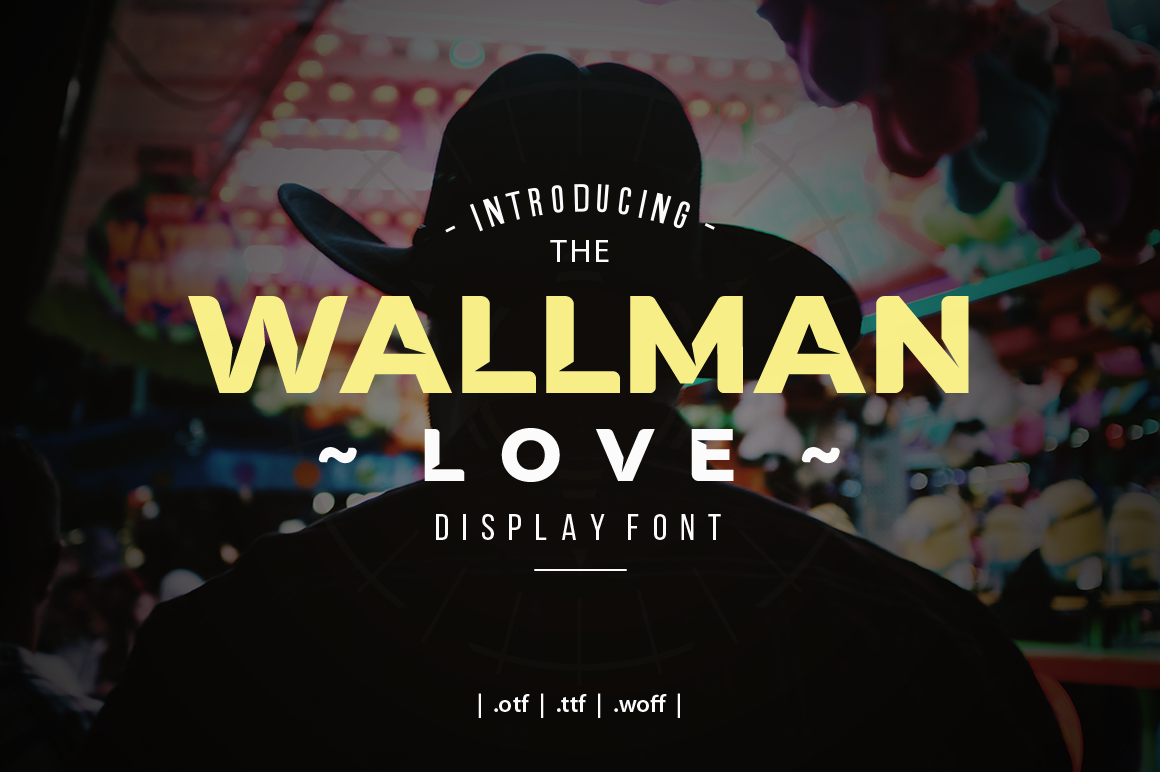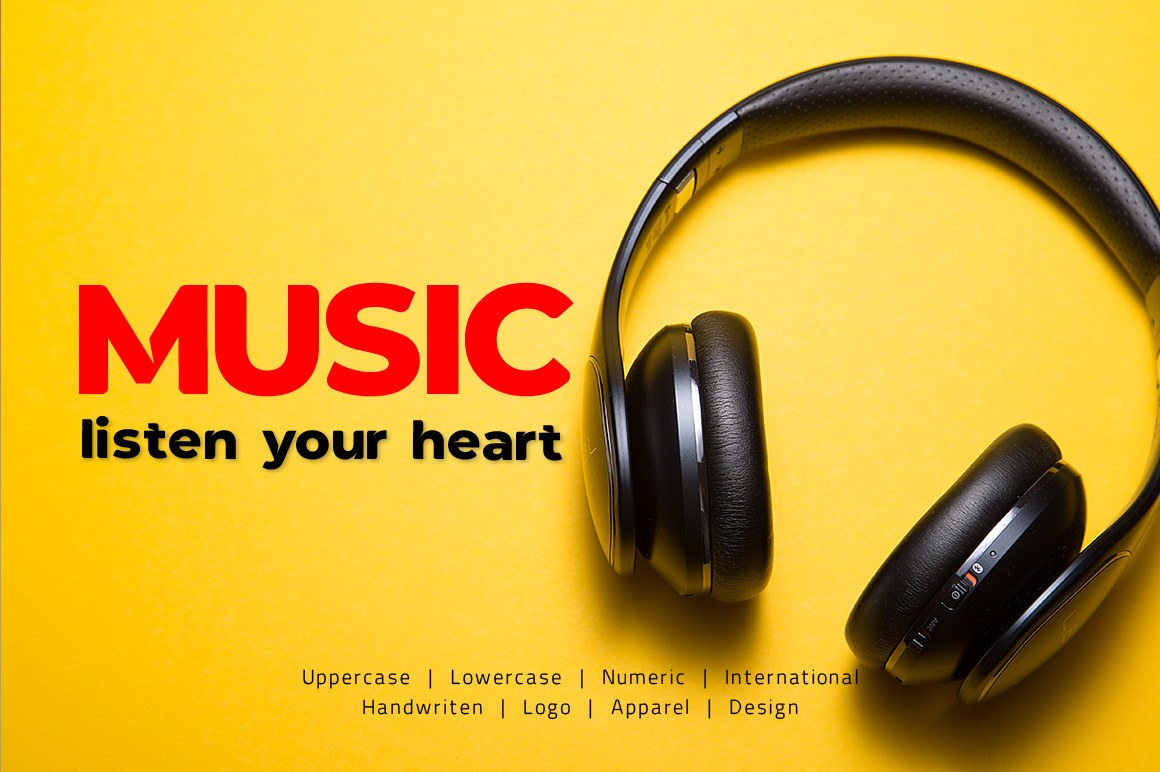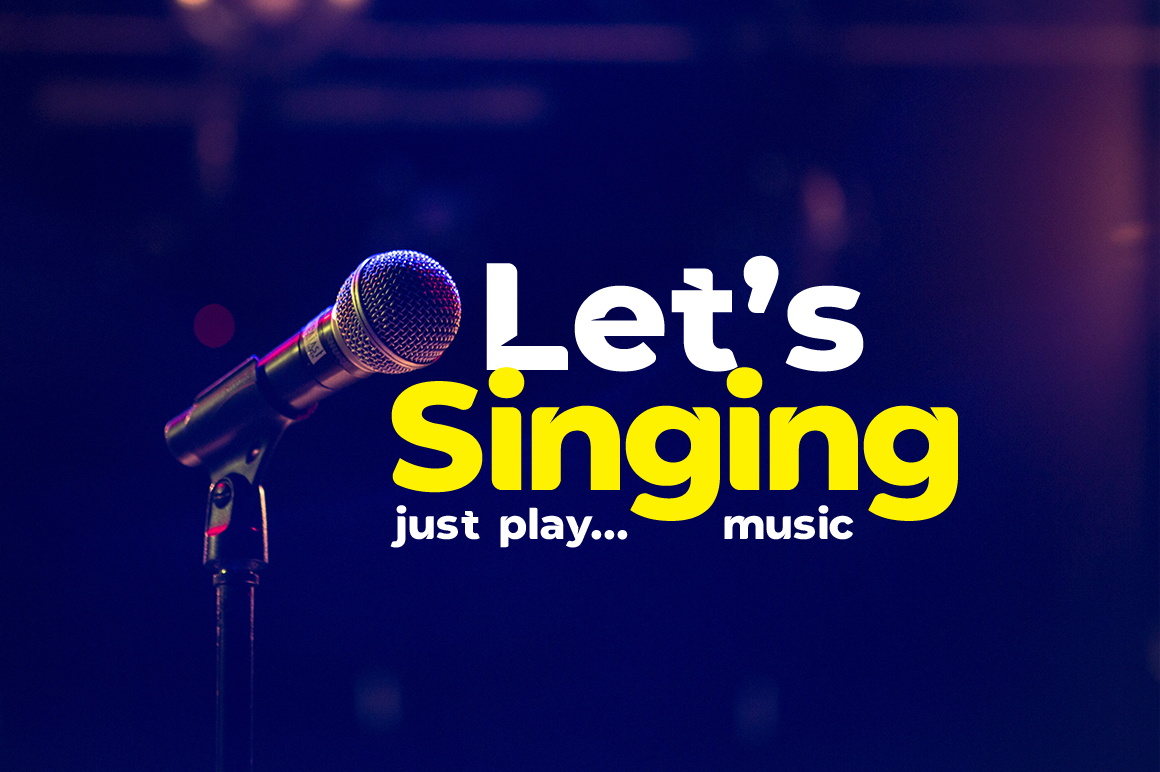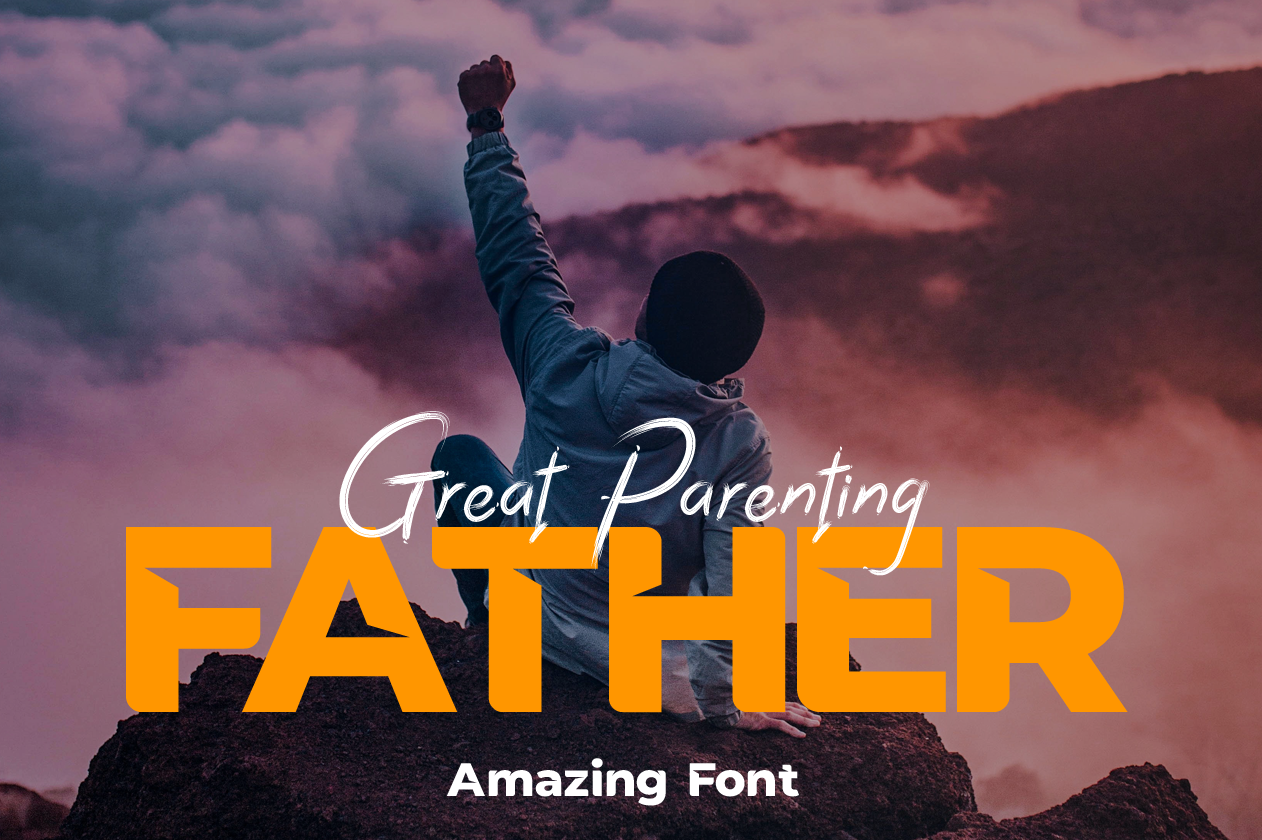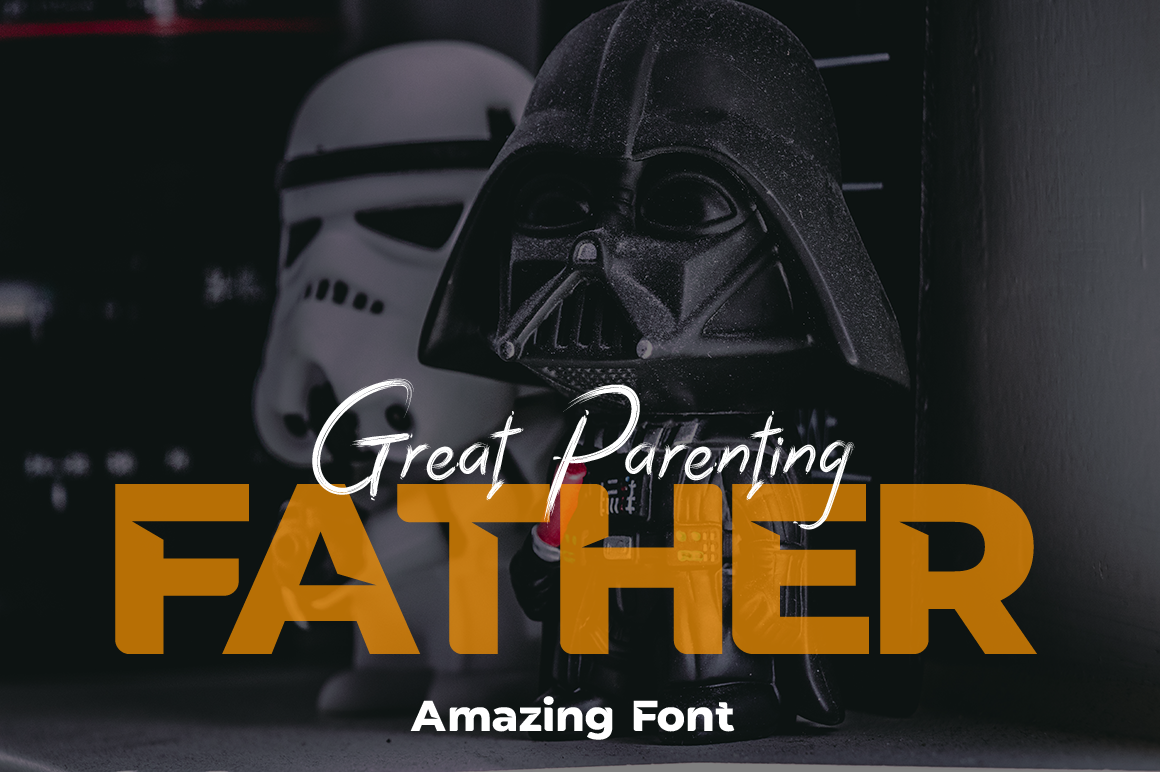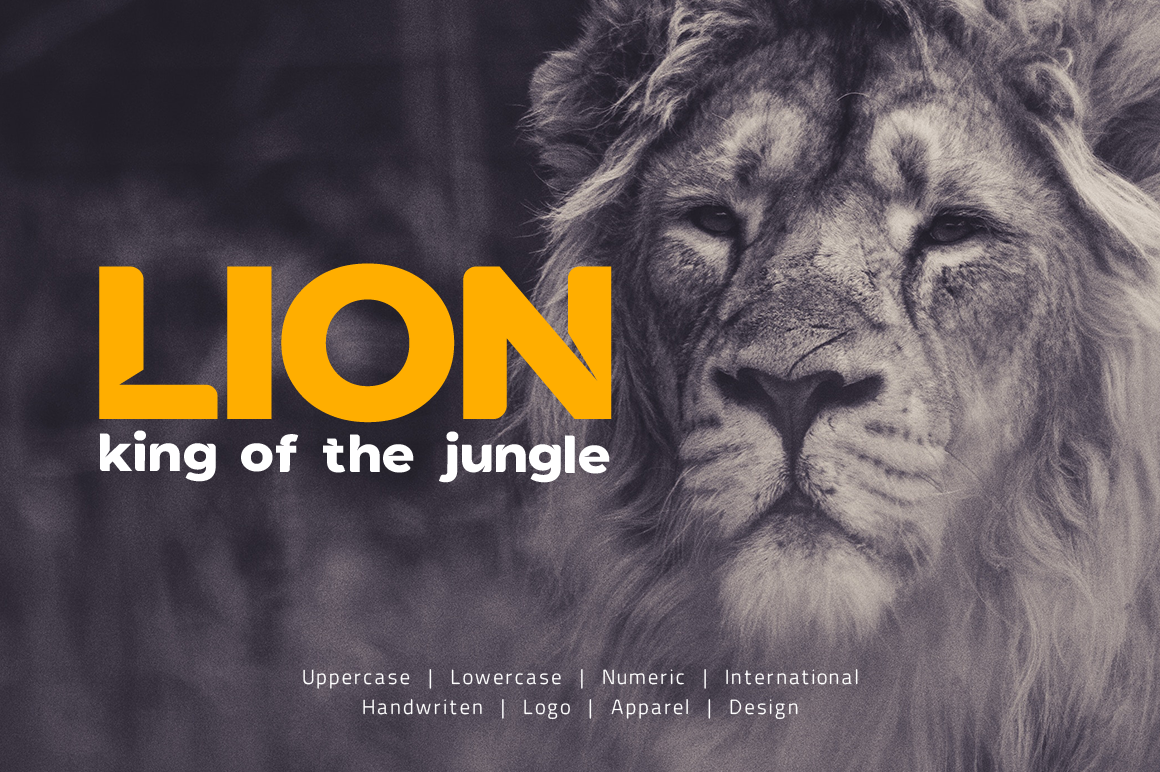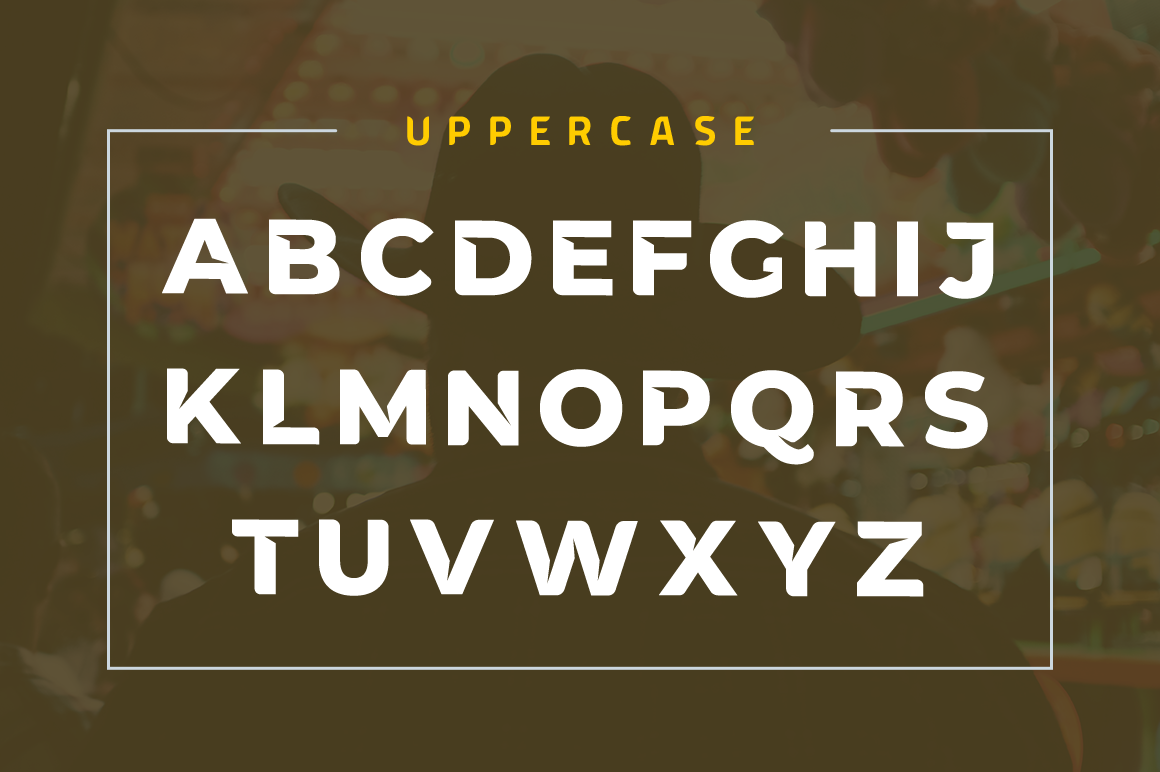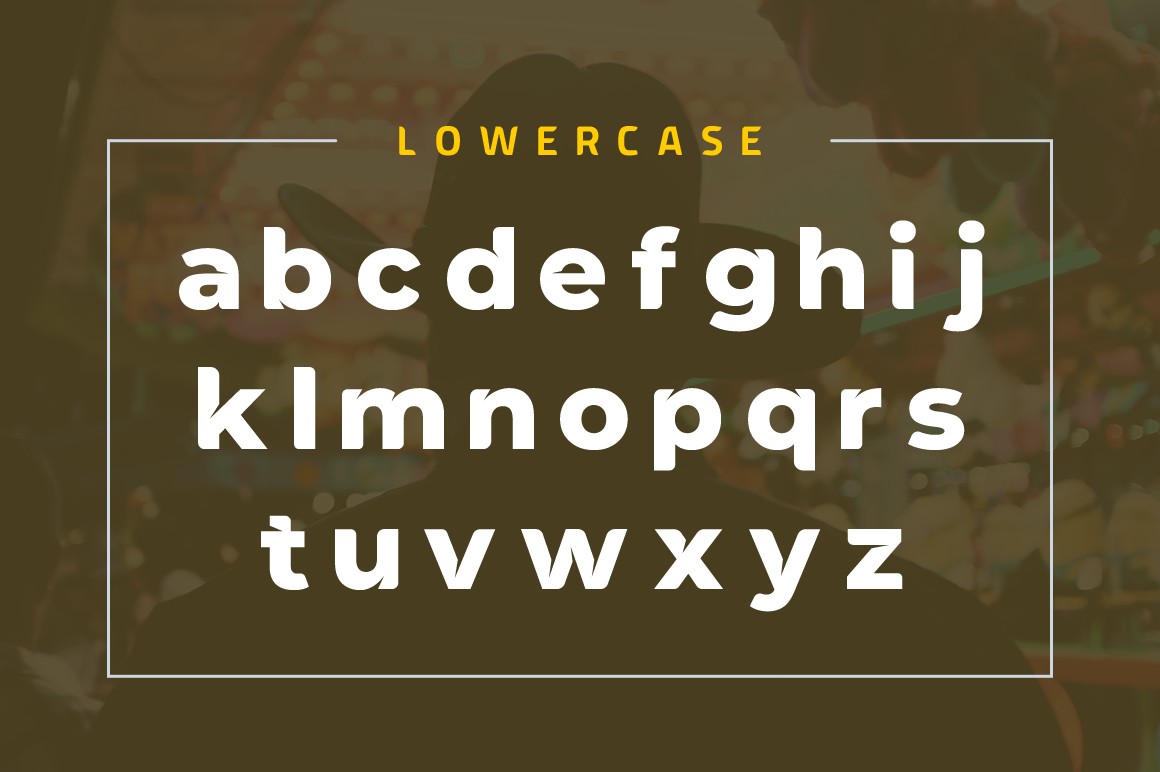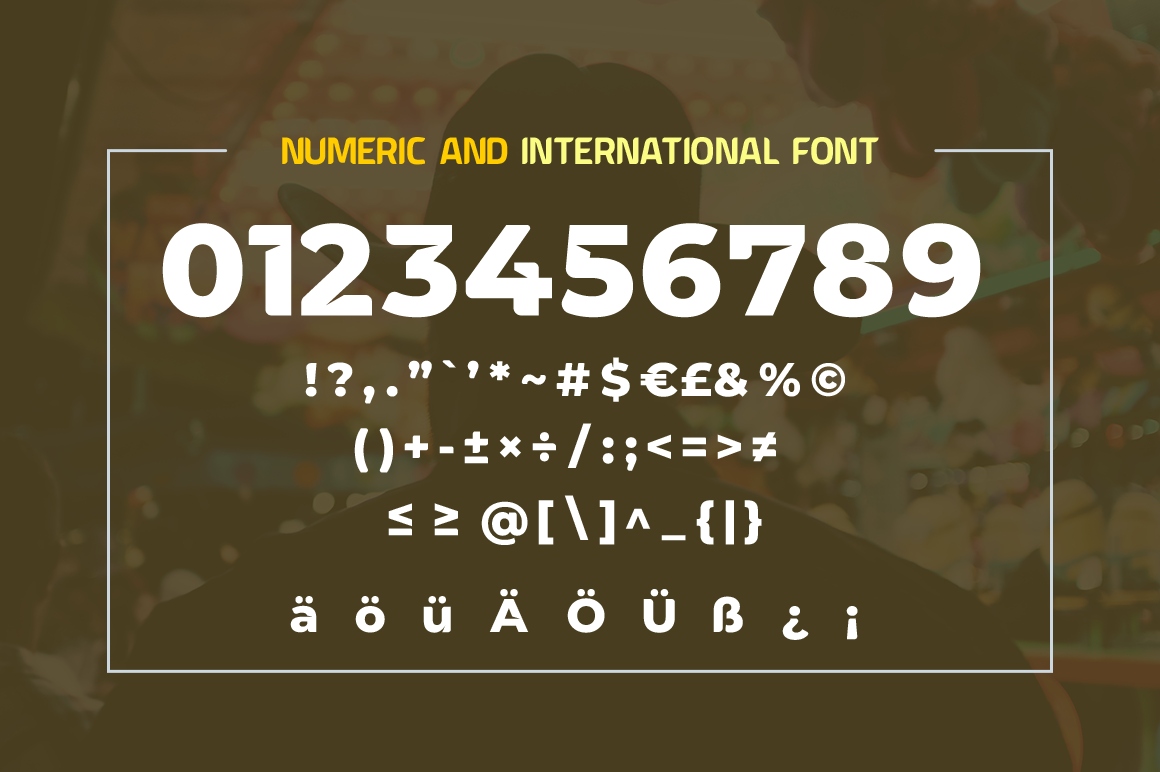
Wallman Love Font
Wallman Love Display font very suitable for poster, for logo, music cover, clothing, and many many cool design projects. Wallman Love Display font is uppercase and lowercas. Numeric and international font.